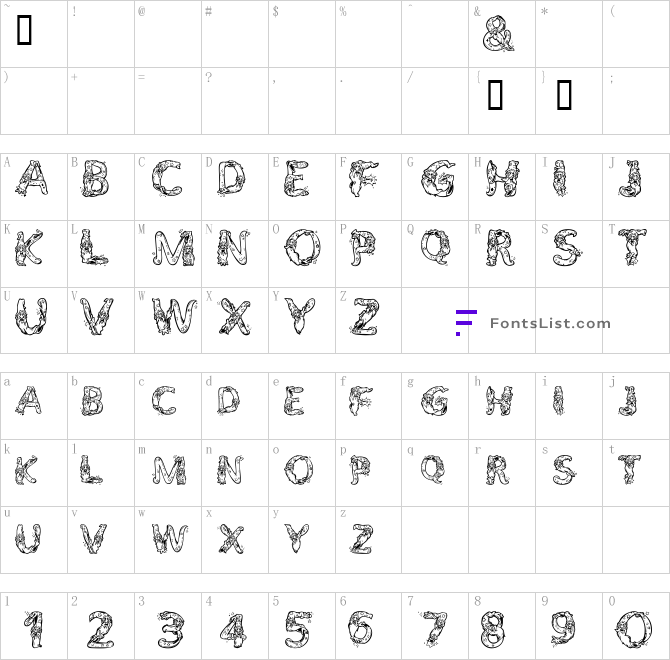
- Font Name:AlphaWizard
AlphaWizard.ttf is a very beautiful artistic font, AlphaWizard.ttf is widely used in the design and printing of various books and pictures,AlphaWizard.ttf has a strong visual impact,AlphaWizard.ttf is a commonly used font in newspapers, magazines and books, and is used in posters, e-commerce Poster design, store design, logo design, font design and other fields.AlphaWizard.